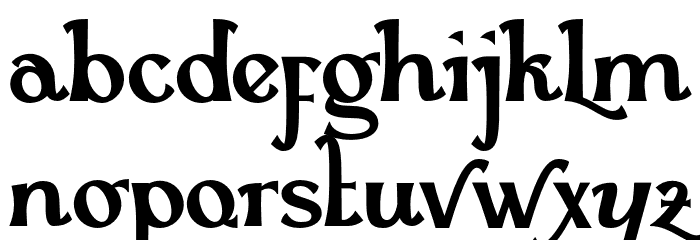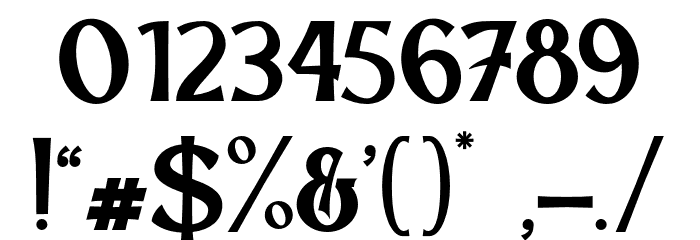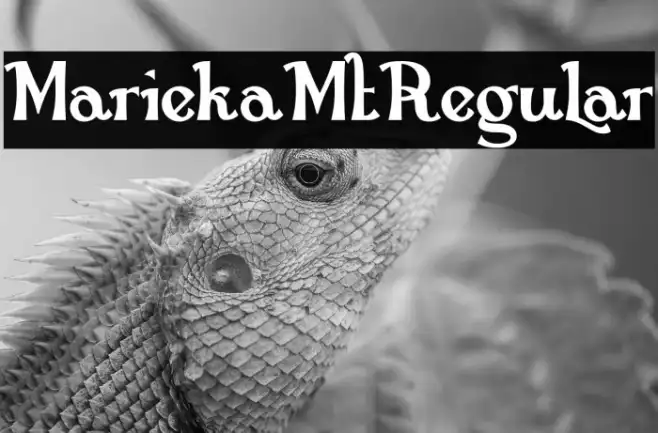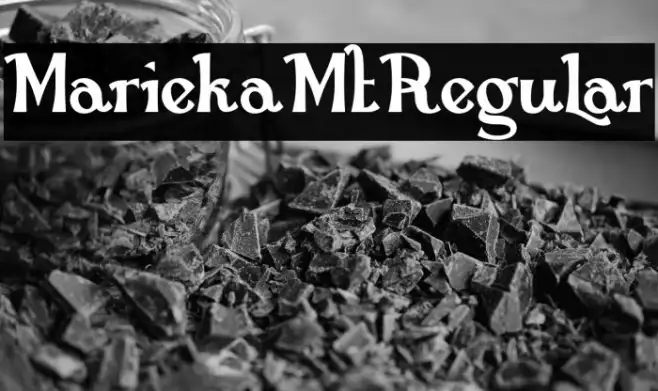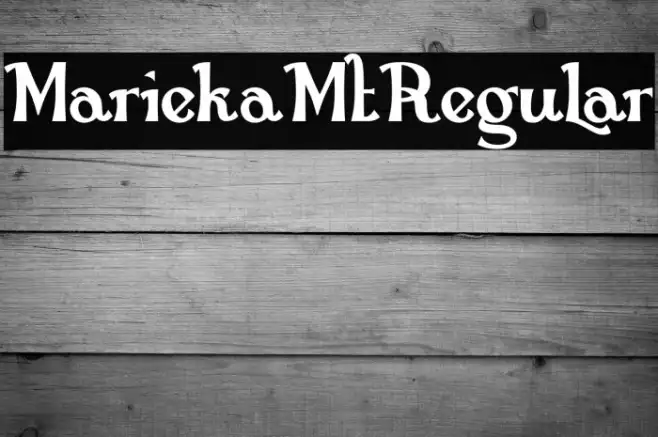
MariekaMtRegular Font
This font features a bold and expressive style with a unique flair in its letterforms. The uppercase letters have a strong presence with sharp, angular serifs that give them a distinctive look. The lowercase letters maintain a consistent style, with some characters displaying playful curves and strokes. The numerals are bold and clear, ensuring readability. Special characters are crafted with the same attention to detail, making them stand out. The overall design is dynamic and eye-catching, suitable for creative and artistic projects.
A bold, expressive font with sharp serifs and playful curves.